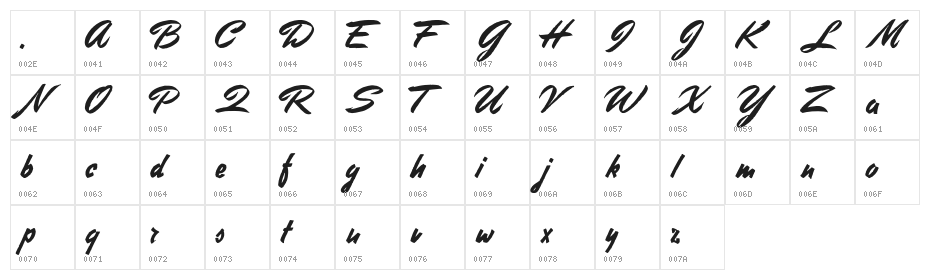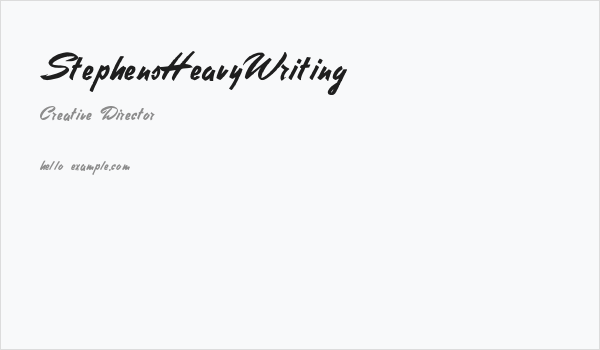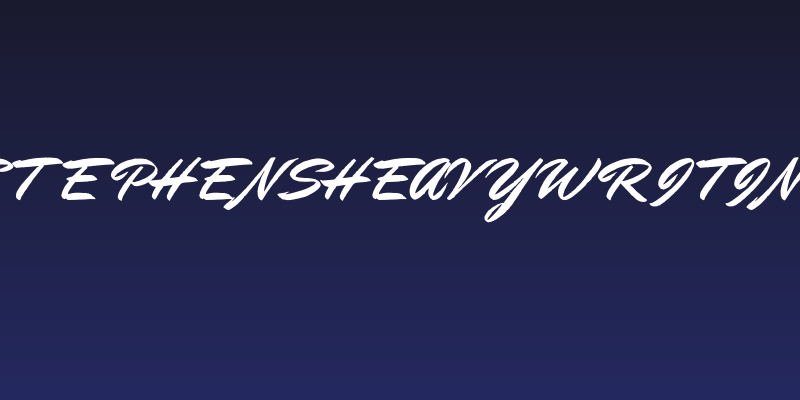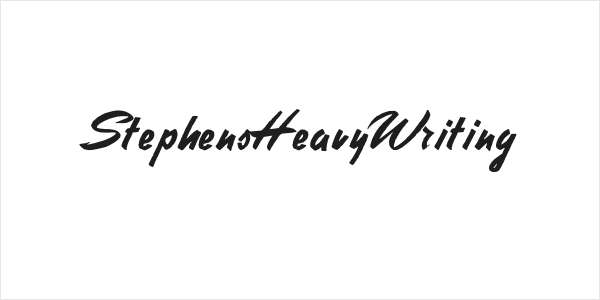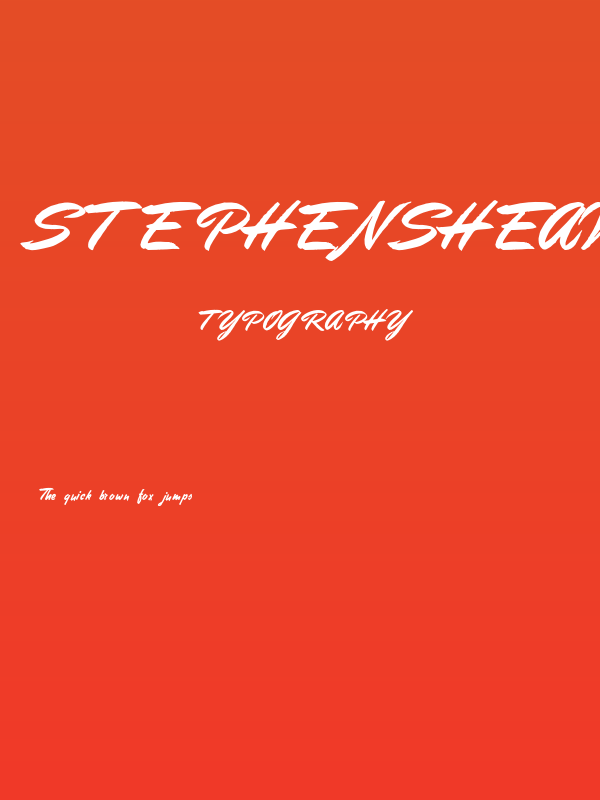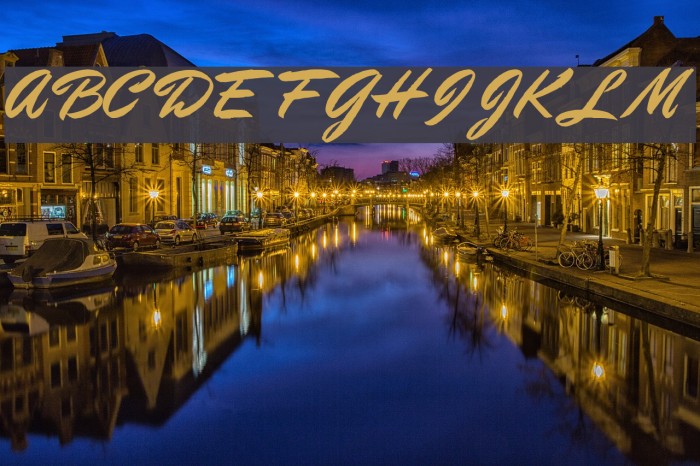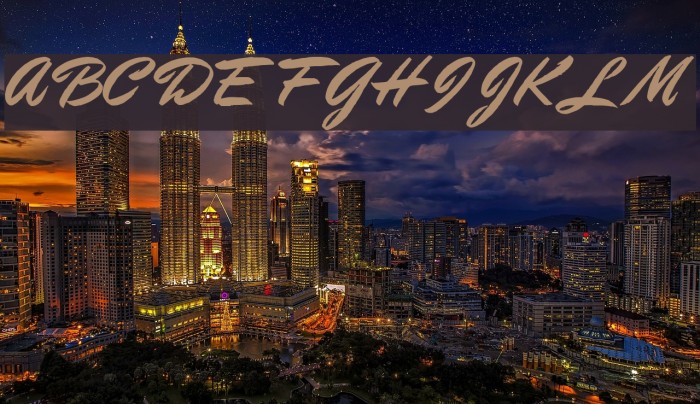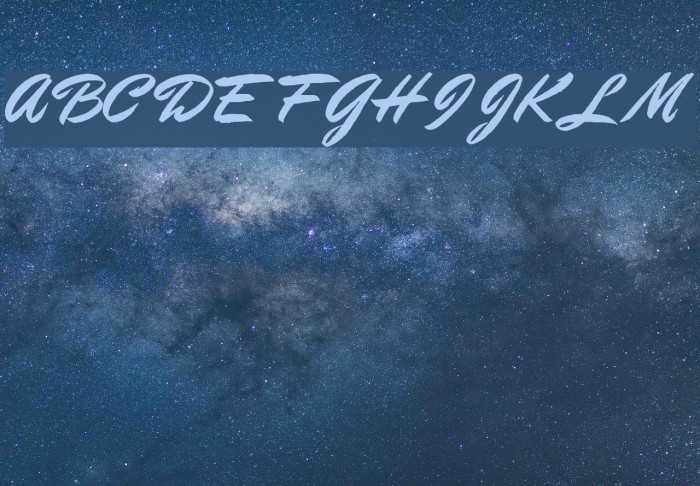
StephensHeavyWriting Font
StephensHeavyWriting Description
This font features a bold, dynamic script style with a strong presence. The uppercase letters are elegantly slanted, giving a sense of motion and fluidity. The lowercase letters maintain a consistent weight, enhancing readability while preserving the artistic flair. The numerals are distinct and match the overall style, ensuring cohesion across different types of text. The special characters are crafted with the same attention to detail, making them suitable for various design applications.
| Use Case | Logos, Headlines, Branding |
| Proposed Projects | Ideal for branding, logo design, and headlines where a strong, artistic impression is desired. |